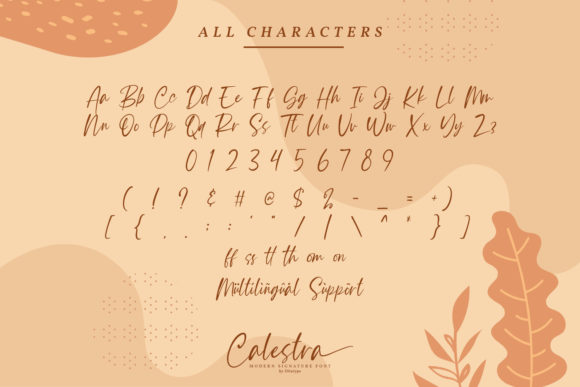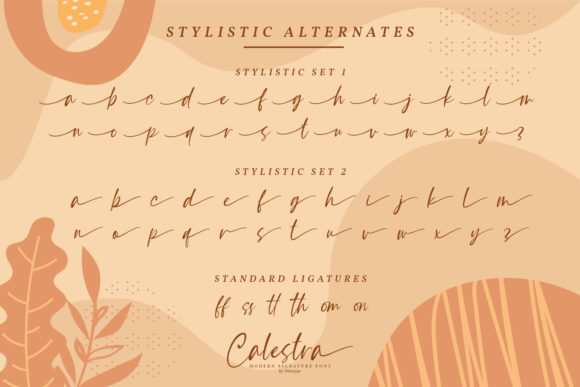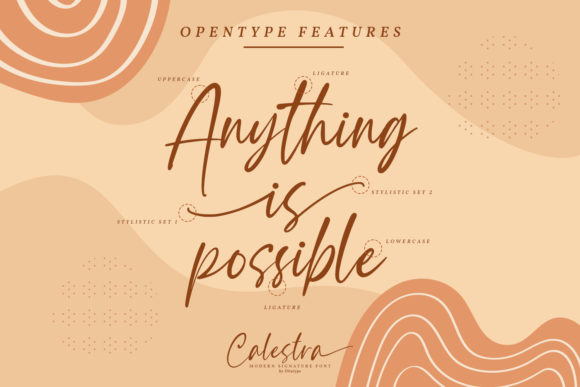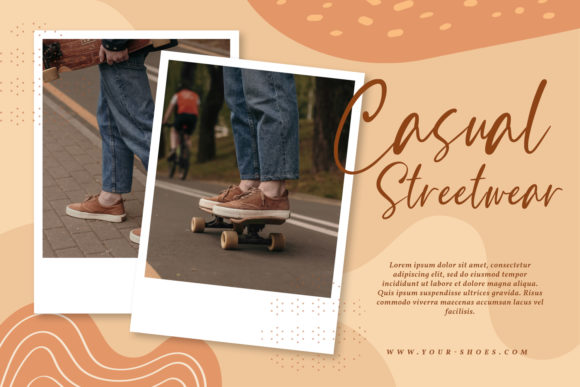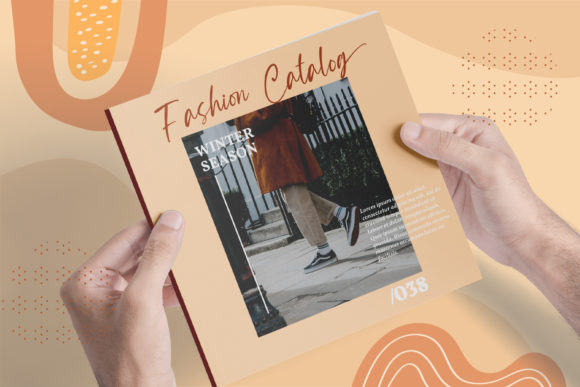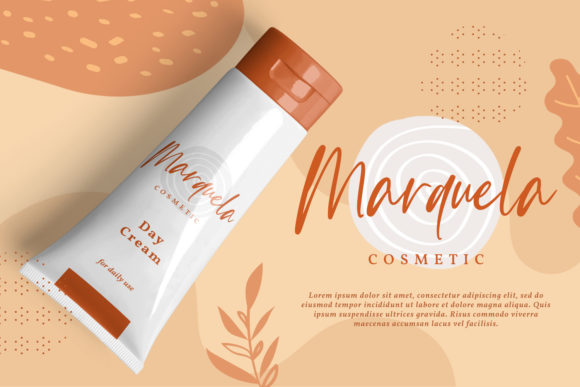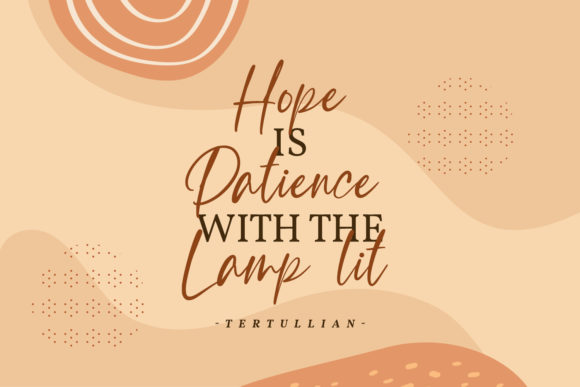
Calestra Font
About Calestra Font
Calestra sounds like a stunning and versatile handwritten font that can add a touch of elegance and sophistication to various design projects. With its PUA encoding, accessing all the glyphs and swashes becomes effortless, giving you the freedom to create unique and beautiful typography. Here are some creative ideas on how to make the most of Calestra font and bring your designs to life:
1. Wedding Invitations: Design elegant and romantic wedding invitations using Calestra font to set the perfect tone for the special day.
2. Branding: Utilize the font in branding materials, including logos, business cards, and letterheads, to create a consistent and sophisticated brand identity.
3. Social Media Graphics: Use Calestra font to design captivating and visually appealing social media posts, quotes, and announcements.
4. Blog Graphics: Incorporate the font into blog post graphics to create a polished and stylish look for your blog content.
5. Quote Art: Create inspirational quote art pieces using Calestra font to add a touch of elegance to your motivational messages.
6. Greeting Cards: Design beautiful and personalized greeting cards for various occasions with the font’s flowing and elegant style.
7. Book Covers: Use Calestra font in book cover designs to create a refined and eye-catching typography that complements the book’s theme.
8. Packaging Design: Create sophisticated and attractive packaging designs using the font for product labels and tags.
9. Art Prints: Design artistic prints featuring illustrations and typography with Calestra font to create stunning wall art.
10. Apparel Design: Incorporate the font into t-shirt designs, hoodies, and other apparel to add a touch of elegance to your clothing line.
11. Menu Cards: Design elegant and stylish menu cards for restaurants and special events using Calestra font.
12. Product Labels: Use the font to create refined and visually appealing labels for various products.
13. Invitations and Announcements: Design eye-catching invitations and announcements for events and celebrations using the font’s flowing and elegant style.
14. Personal Stationery: Use Calestra font to create beautiful personal stationery, including note cards, envelopes, and thank-you cards.
15. Calendars: Design elegant and artistic calendars featuring Calestra font to stay organized in style.
16. Artistic Posters: Create artistic posters with illustrations and typography using the font to add a touch of elegance to your artwork.
17. Home Decor: Use Calestra font in DIY home decor projects, such as creating custom wall art or decorative signs.
18. Wedding Signage: Design stylish and elegant wedding signage, such as welcome signs and seating charts, using the font’s sophisticated look.
19. Digital Marketing: Utilize the font in digital marketing campaigns to create visually captivating and sophisticated content.
20. Scrapbooking: Incorporate Calestra font into scrapbooking layouts to add elegant captions and titles to your memories.
In conclusion, Calestra is an elegant and flowing handwritten font that offers a mix of sophistication and contemporary style. With its PUA encoding, it provides easy access to a wide range of glyphs and swashes, allowing you to create beautiful and unique designs effortlessly. From wedding invitations to social media graphics and beyond, Calestra font is a versatile choice that will elevate your projects to the highest levels of elegance and charm.